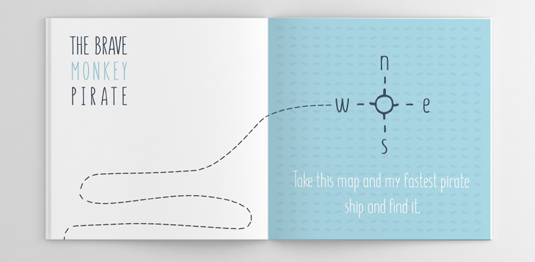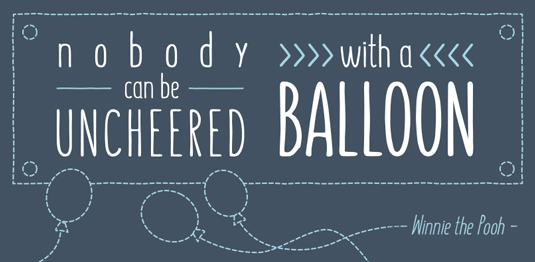
Font of the day: Summer
Every day we showcase the best fonts on the web. Today it's Summer from Gatis and Evita Vilaks.
Summer from Gatis and Evita Vilaks
Summer is a brand new handwriting font, created by designers Gatis and Evits Vilaks. Created to 'be clumsy with strong construction', Summer is a great typeface for decorative headlines, branding projects, packaging, posters and more.